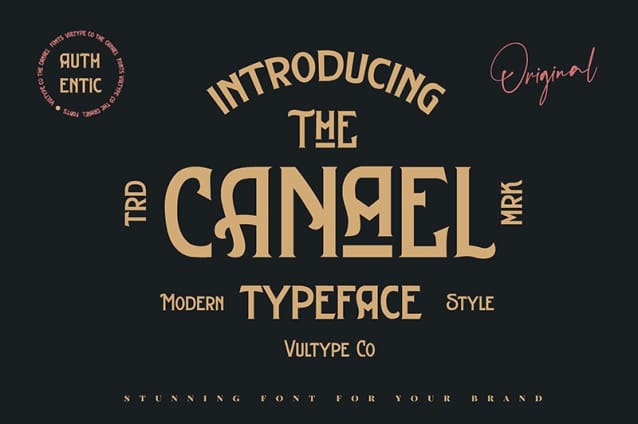
Canael Font
Canael Font is a classic display typeface. A minimal contrast look that has been synonymous with fashion for decades. It is perfect for branding projects, logo, wedding designs, social media posts, advertisements, product packaging, product designs, label, photography, watermark, invitation, stationery and any projects that need handwriting taste.